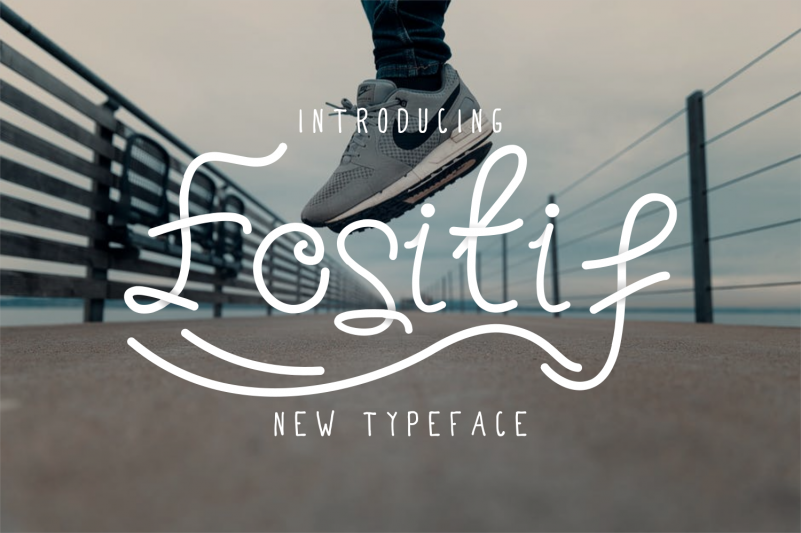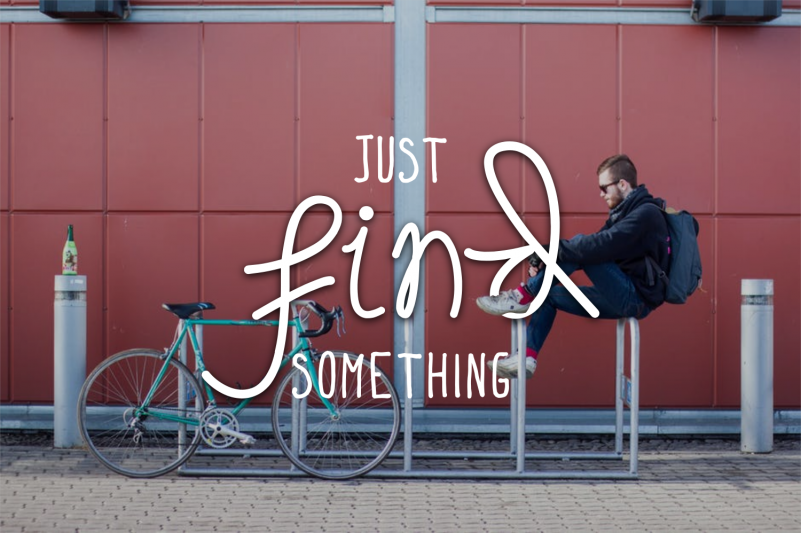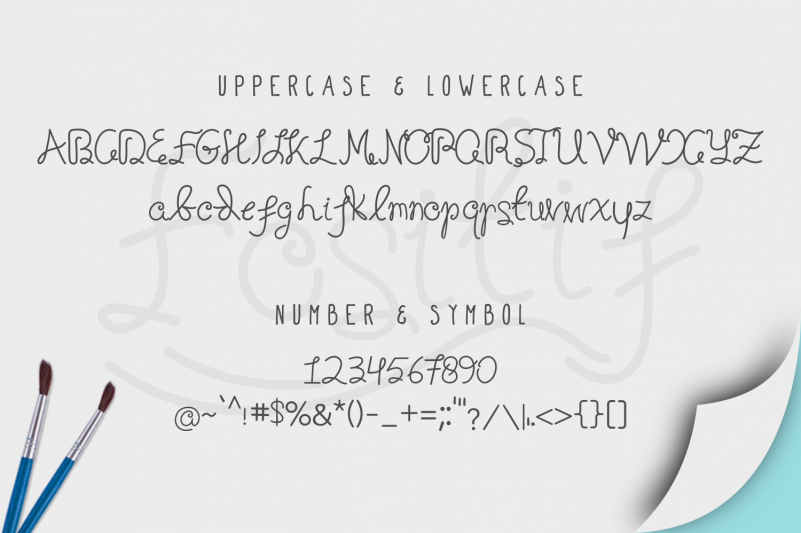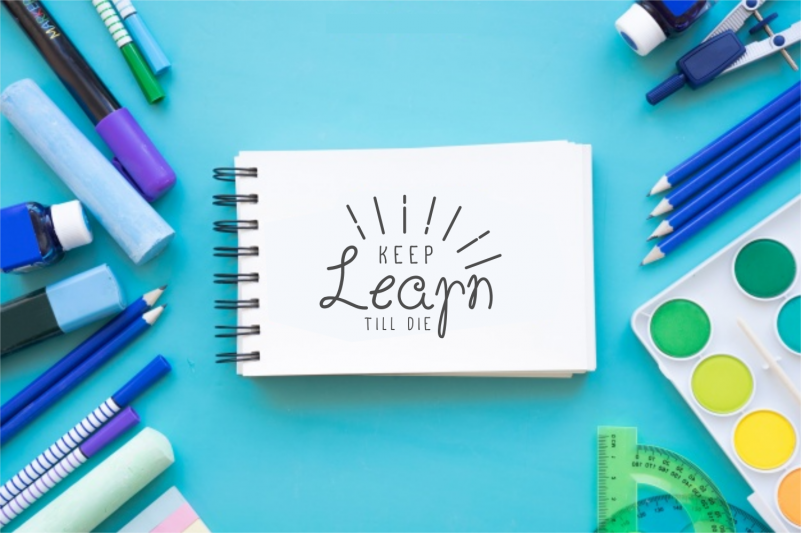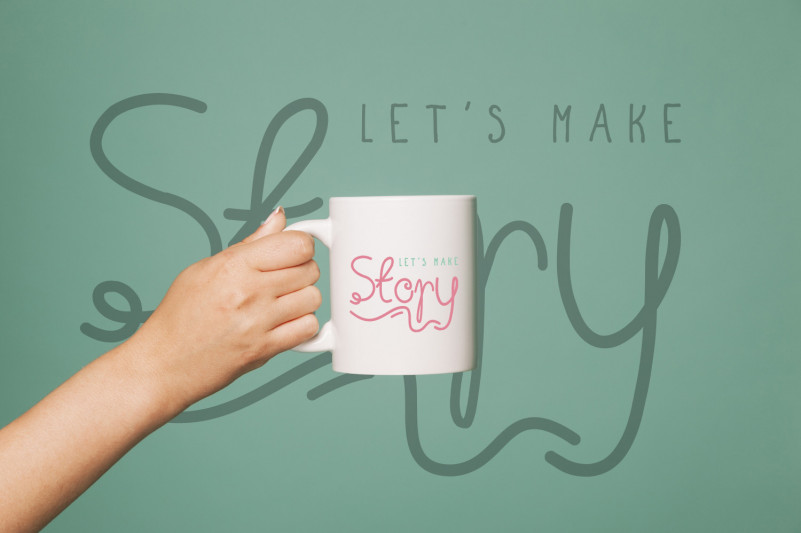
Fositif Fancy Happy Font
You dont read it wrong, it’s Fositif Fancy Happy Font! It’s a Fancy – Happy Font. I wanna bring spirit, happiness, fair, equality, live the full life. This font is great for watermark, quote, poster, invitation, poem etc But it will also works if you use it as part of branding, album cover, etc
FOSITIF Fancy – Script Font